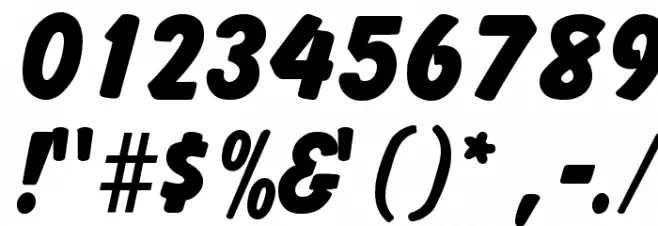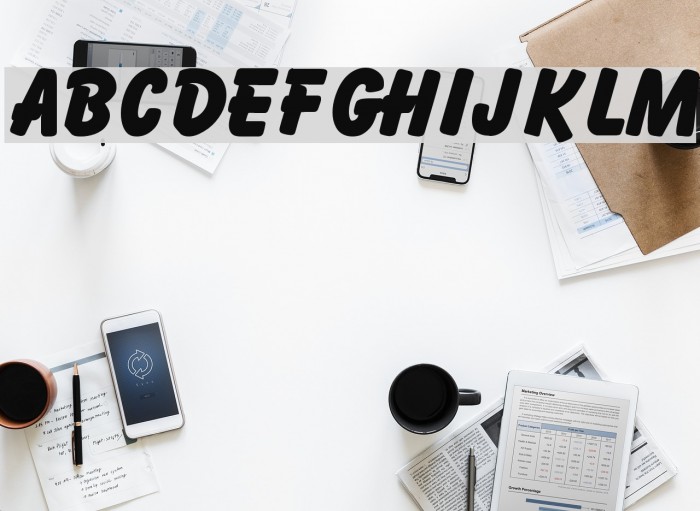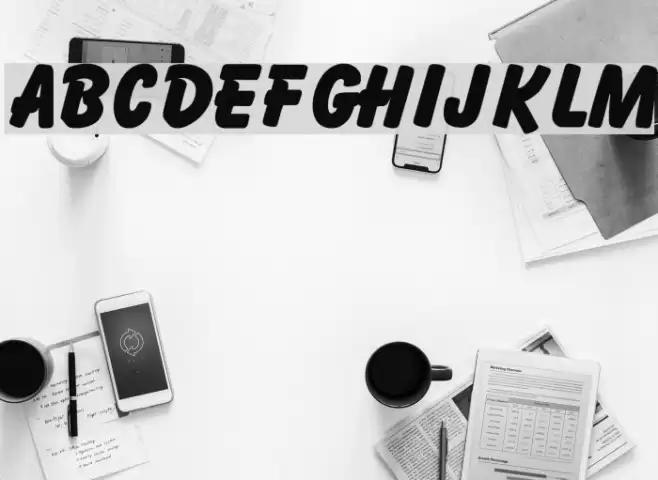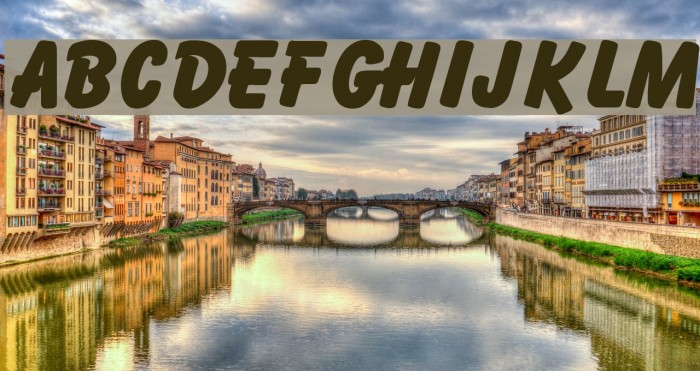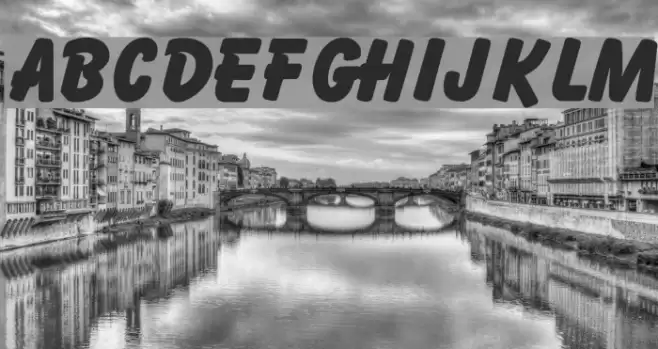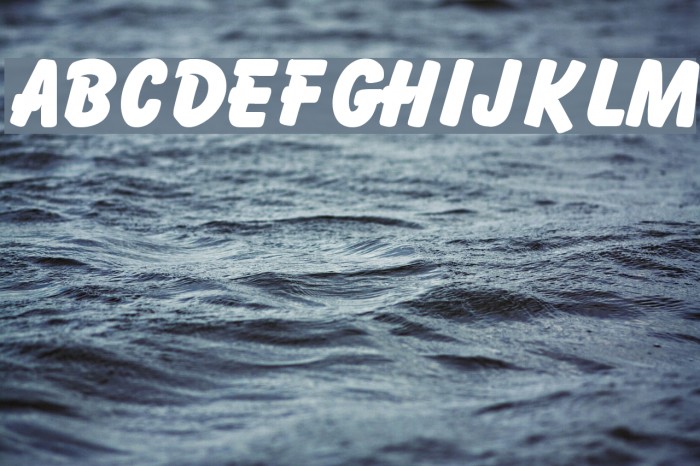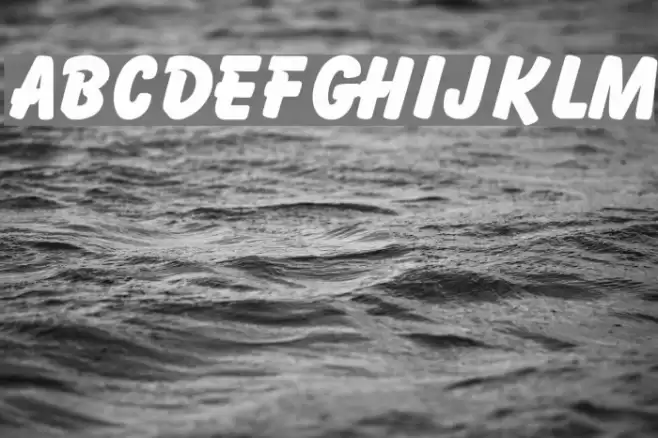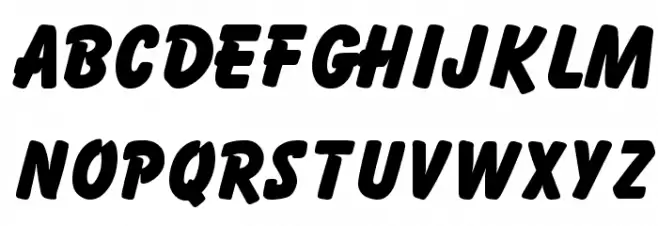
Bologna Font
Bologna Description
This bold and dynamic font features a strong, playful style with a sense of movement and energy. The letters are thick and rounded, giving them a friendly and approachable appearance. The strokes are consistent in width, creating a uniform look across all characters. The font is slightly italicized, adding to its lively and informal feel. It is well-suited for projects that require a fun and engaging typeface, such as children's books, posters, or branding for playful products. The character spacing is normal, ensuring readability while maintaining its bold presence.
| Overall Style | Playful, Energetic, Informal |
| Proposed Projects | Ideal for children's books, playful branding, posters, and informal invitations. |